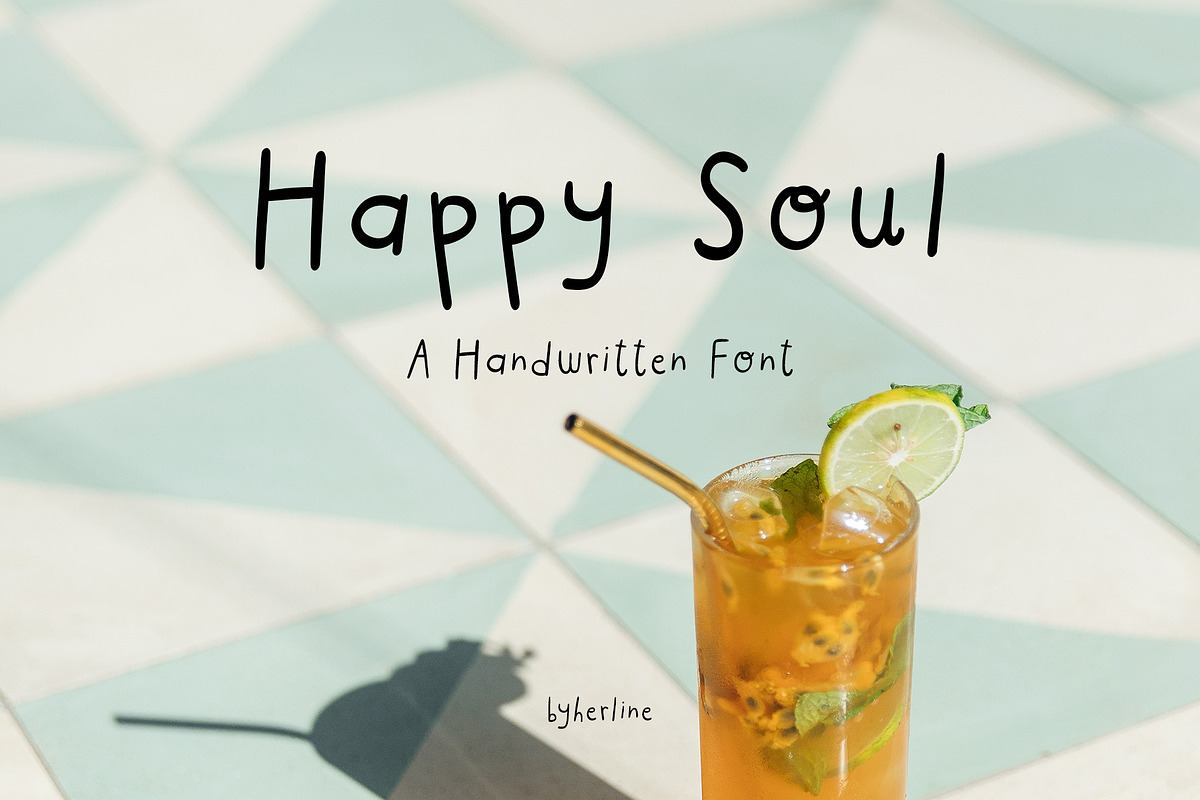
Happy Soul Handwritten Font Free Download
Happy Soul Handwritten Font Free Download is a cheerful and uplifting script typeface that radiates positivity and warmth. Perfect for inspirational quotes, social media posts, greeting cards, branding, and lifestyle blogs, this font adds a joyful, personal touch to your designs.
With its playful curves and natural handwriting style, Happy Soul Handwritten Font Free Download brings heart and authenticity to any project. Whether you're designing for a wellness brand, a handmade product, or a feel-good campaign, this font helps your message connect with emotion and charm. Try it out in your next mockup to experience the happy energy—then upgrade to a commercial license when you're ready to share it with the world.